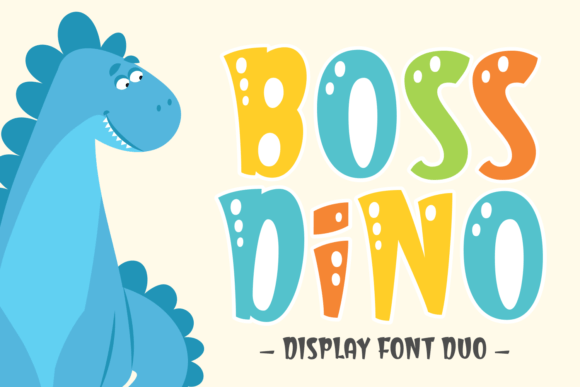
Introducing Boss Dino Font, a captivating display font that will bring life and excitement to your projects! Created by the talented Jasm from 7NTypes, this font is not just any ordinary typeface. It is a font with personality, ready to make a bold statement.
Are you in need of a font that will capture the attention of your target audience? Look no further! Boss Dino Font is the perfect choice for those looking to add a touch of playfulness and creativity to their designs. With its unique design and fun elements, this font is sure to grab the attention of both kids and adults alike.
Whether you're working on a school-themed project or simply want to add a playful touch to your crafting endeavors, Boss Dino Font has got you covered. Its versatility allows it to be used in a variety of settings, making it suitable for digital designs, restaurant menus, presentations, and even greeting card making. The possibilities are endless!
What sets Boss Dino Font apart from other display fonts is its ability to effortlessly enhance any project it is paired with. It seamlessly blends into a wide range of creative ideas, instantly giving them a vibrant and eye-catching appeal. Watch as your designs come to life and stand out from the crowd with this font's unique charm.
But why stop there? Boss Dino Font is not just another font on the market – it's a font that evokes emotions and sparks imagination. Its playful nature will ignite a sense of joy and excitement in both the creator and the audience. Let your ideas roam free and watch as this font brings them to life in the most captivating way.